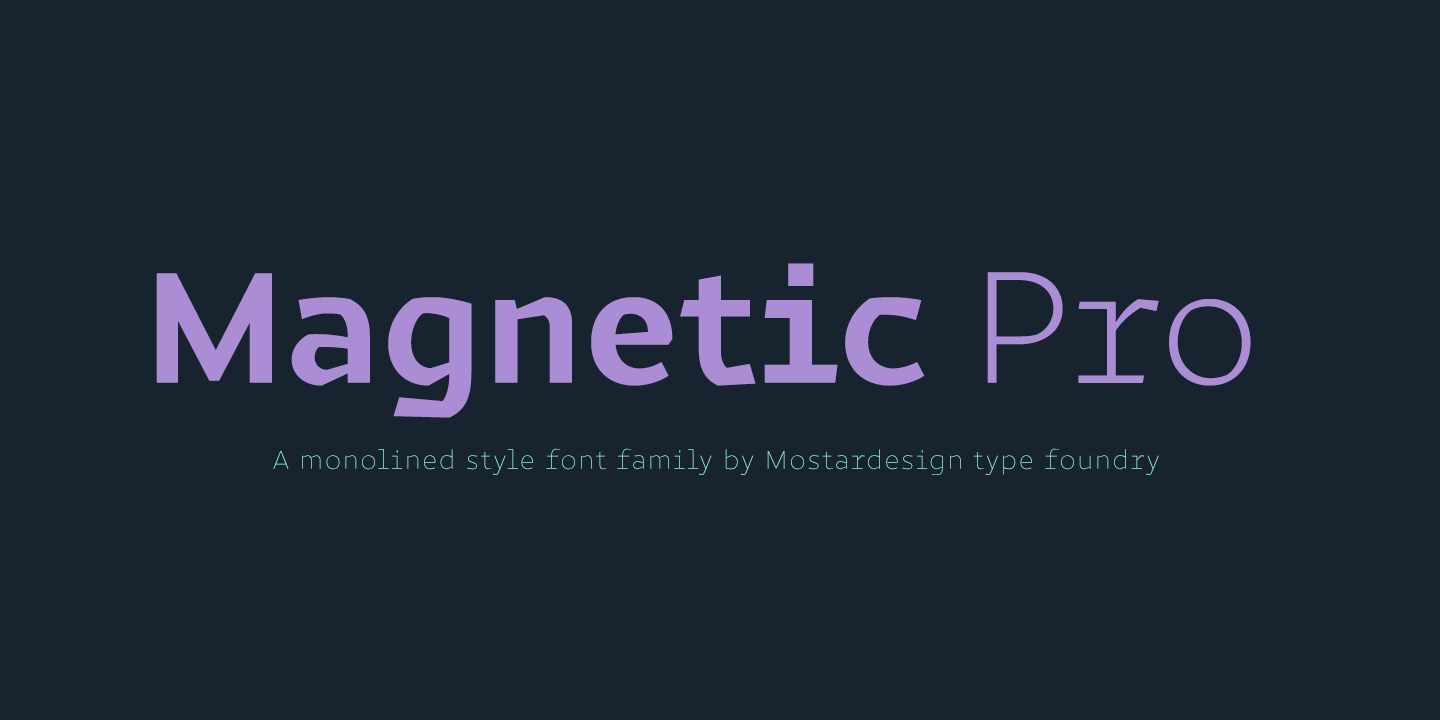
This sophisticated typeface is an excellent choice for projects that demand a blend of modern precision, sleek elegance, and often a subtle, almost technological appeal. Imagine it forming the core of innovative tech company branding, providing crisp readability for digital interfaces, or adding a refined edge to minimalist design portfolios. Magnetic Pro Font is also perfectly suited for designing streamlined app experiences, crafting precise logos for forward-thinking businesses, or creating compelling headlines for publications focused on design, architecture, and advanced technology. Its balanced proportions, clean lines, and often subtle, distinctive details make it an ideal option for any design seeking to convey innovation, clarity, and an effortlessly modern sensibility, such as smart device UIs, high-end product packaging, or conceptual art exhibitions.
What makes Magnetic Pro Font so exciting? It strikes a powerful balance between minimalist design and subtle personality, often featuring unique cuts, distinctive terminals, or a refined rhythm that sets it apart from more conventional sans-serifs. This font doesn’t just present information; it frames it with an inherent sense of contemporary style and intellectual curiosity. It's engineered to perform exceptionally well in both display settings and more extensive text blocks, ensuring your message is not only read but also appreciated for its thoughtful design. The inherent clarity and adaptable nature of its character shapes make it particularly effective for brands that champion originality, refined aesthetics, and a forward-thinking, intelligent identity. Its design can evoke a sense of streamlined processes and efficient, cutting-edge solutions, drawing the eye with subtle precision.
The Magnetic Pro Font family typically offers a comprehensive range of weights and styles to ensure extensive design flexibility, allowing for various levels of visual expression and nuanced hierarchy. You can expect to find a broad spectrum of options, including Thin, Light, Regular, Medium, and Bold, along with corresponding italic versions, and potentially alternate characters for specific stylistic needs. Each weight is meticulously designed to maintain the font's core characteristics while offering distinct visual impacts, allowing for a precise and adaptable typographic hierarchy. These variations enable designers to create well-structured and highly functional text layouts, effectively differentiating between headlines, subheadings, and body text with elegance and clarity. The extensive family ensures that Magnetic Pro Font can be the singular typeface for an entire brand system, guaranteeing visual consistency and a polished, contemporary appearance across all mediums.
Whether you're developing a new digital product, building a brand identity for a tech-focused enterprise, or simply need a typeface that speaks with quiet confidence and modern elegance, Magnetic Pro Font Free Download is an outstanding choice. Its refined design and broad versatility will ensure your message is always delivered with utmost clarity and sophisticated purpose.